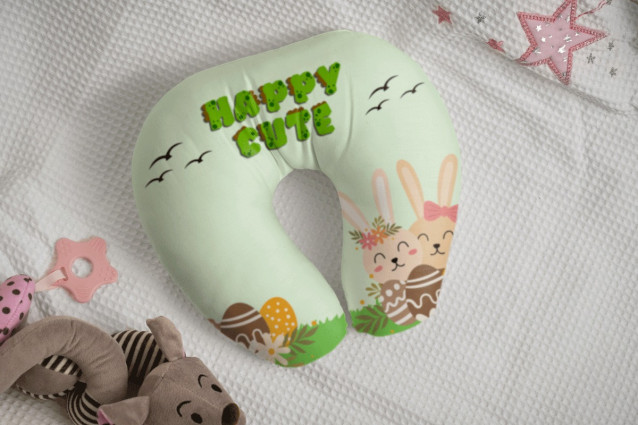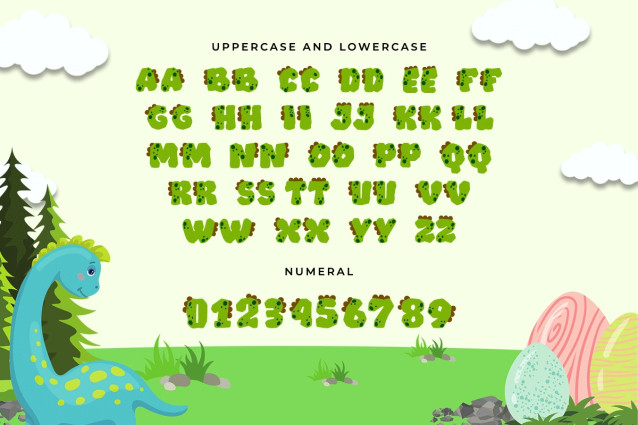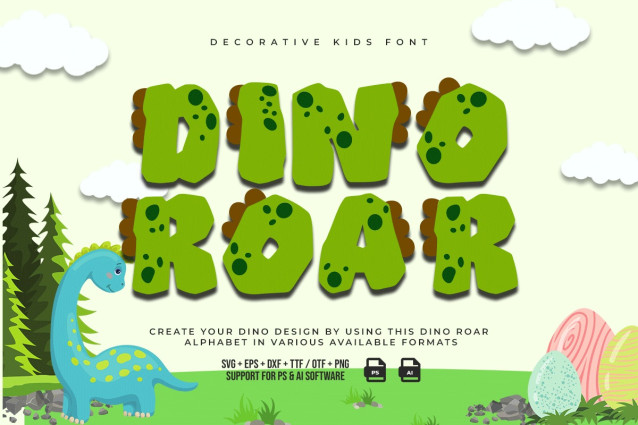
Dino Roar Font
Dino Roar Decorative Kids Font The Display typeface, Dino Roar Decorative Kids Font features cute and modern font design elements. Each letter in this font is easy to distinguish. You can see it cute from far or close. The letters in this font are circles that are not perfectly round. This letter has a motif of dinosaur footprints and other dinosaur body parts. This font is legible. This typeface is the best font for children’s supplies, such as baby items, school supplies, kid’s clothes, and water bottles. Dino Roar Decorative Kids Font can be used on roadside posters and billboards containing promotions or product announcements about children. This font use on book and magazine covers. This font is best for writing short sentences or words because it looks simple and clean. It can use as drink packaging and cellphone casing. Dino Roar Decorative Kids Font can use as a digital font and suitable for animated videos, title or subtitle that appears in the intro to write a thank you note outside the video. This font can be included in cartoons and fairy tales. Of all these explanations, the Dino Roar Decorative Kids Font is the best children’s font. Our display font collection is compatible for use as; Figma Fonts, Canva Fonts, Freepik Fonts, and Adobe Fonts. They also function as Windows Fonts, and Apple Fonts. For your social media needs, you can use and install fonts in our Espot & Futuristic font collection to use as Instagram Fonts, Facebook Fonts and Twitter Fonts.